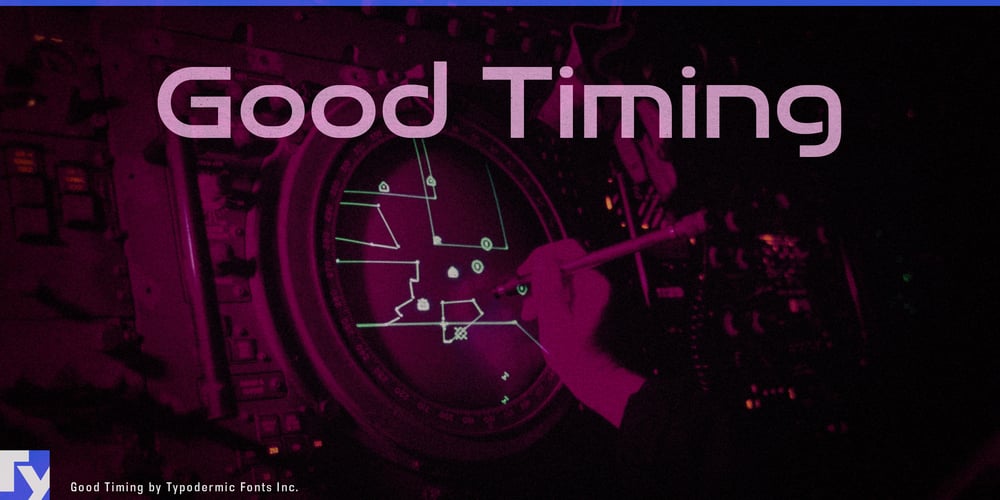
Good Timing Font Family was designed by Ray Larabie and published by Typodermic. Good Timing contains 14 styles and family package options. Welcome to the future of typography with Good Timing—a typeface that doesn’t just keep up with the times, it defines them. Born from the DNA of the iconic Good Times font, Good Timing evolves the concept into a sleek, versatile powerhouse that’s primed for the digital age and beyond.Imagine each character as a capsule of pure design potential, wide-set and confident, ready to launch your message into the stratosphere of style. Good Timing doesn’t just sit on the page; it commands it, infusing your text with an unmistakable aura of cutting-edge cool that whispers “tomorrow” in every curve and line. With seven meticulously crafted weights, including italics that slant with the precision of a supercar taking a hairpin turn, Good Timing gives you an entire spectrum of typographic expression. From the whisper-quiet elegance of its lightest cuts to the earth-shaking presence of its boldest weights, you have the tools to fine-tune your visual voice for any audience, any platform, any future.But Good Timing isn’t just about looking good—it’s about performing under pressure. Packed with a comprehensive set of glyphs, it’s ready to tackle everything from complex mathematical formulas to intricate financial reports without breaking a sweat. Fractions, ordinals, currency symbols—they’re all here, precision-engineered to integrate seamlessly with the font’s futuristic aesthetic. This typeface is a true polyglot, fluent in an impressive array of Latin-based European languages, Vietnamese, Greek, and most Cyrillic-based writing systems. It’s like having a universal translator for your design, ensuring your message resonates from the bustling streets of Hanoi to the tech hubs of Eastern Europe.Whether you’re crafting the user interface for the next big app, designing wayfinding systems for a smart city, or creating the visual identity for a company that’s inventing the future, Good Timing is your typographic co-pilot. It’s more than a font—it’s a statement of intent, a declaration that your design isn’t just keeping pace with the future; it’s actively shaping it.So, are you ready to synchronize your designs with the pulse of innovation? Good Timing isn’t just waiting for you—it’s already there, in that sleek, capsule-shaped future where your most ambitious design visions become reality.